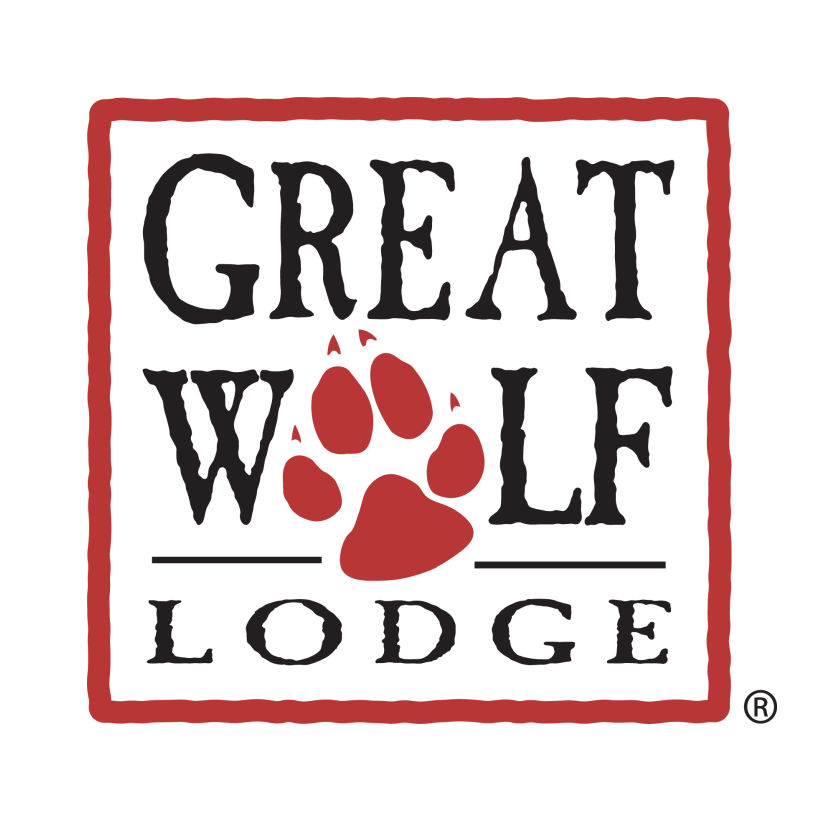
Great Wolf Lodge Font
Fonts in UseGreat Wolf Lodge is a chain of indoor water park resorts with locations across North America. They offer a variety of family-friendly activities and accommodations, including water slides, arcades, restaurants, and themed rooms.
The brand's logo was created using Caslon Antique, a decorative typeface designed by Berne Nadall in 1894. The typeface was first called "Fifteenth Century," but was later renamed to "Caslon Antique" for marketing.